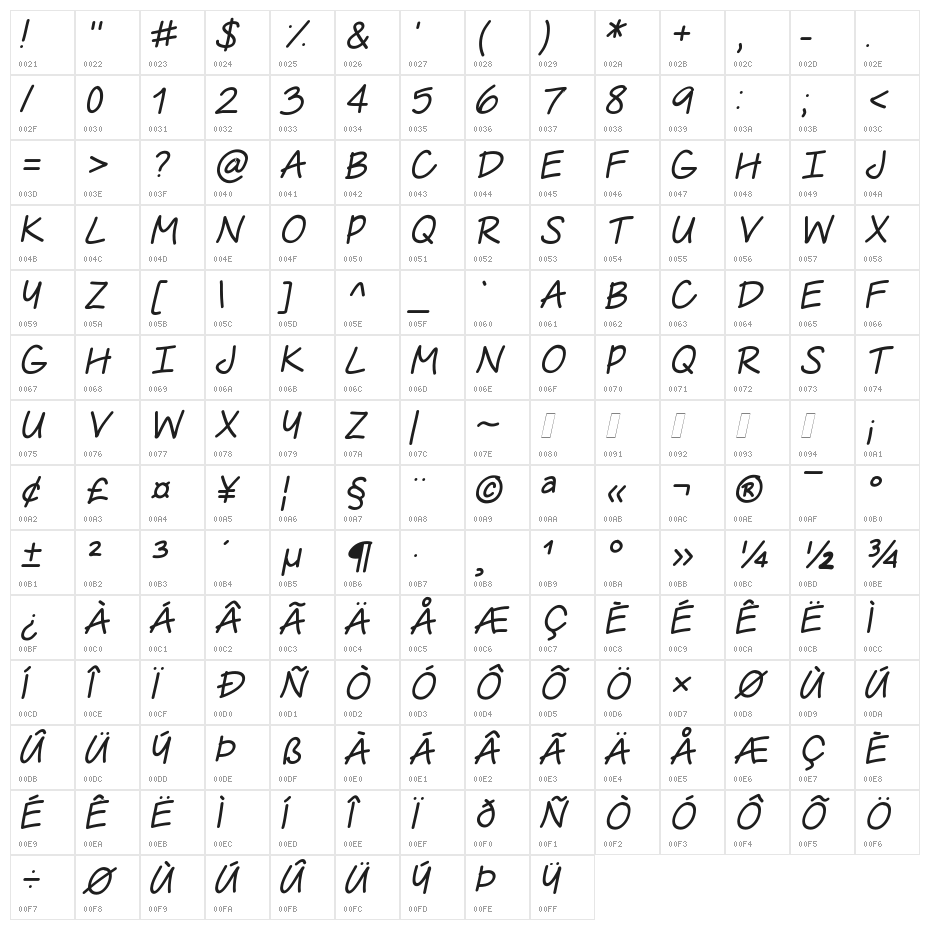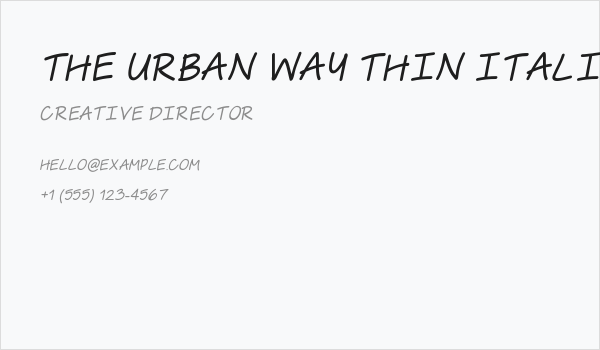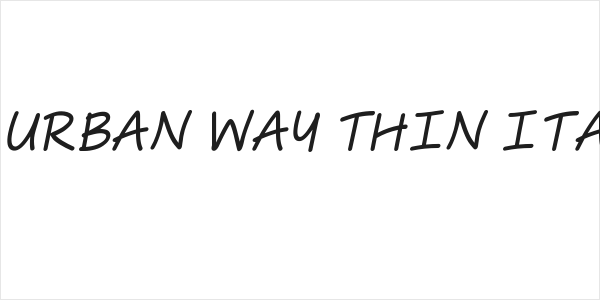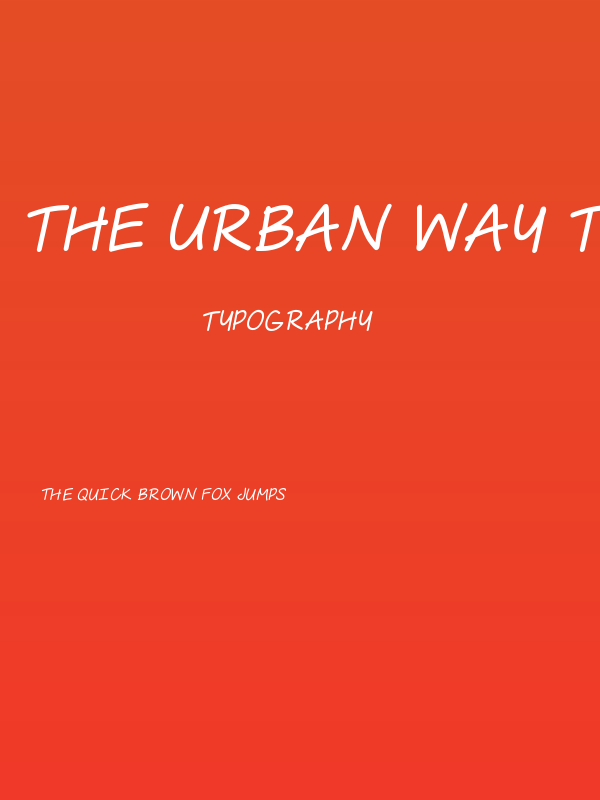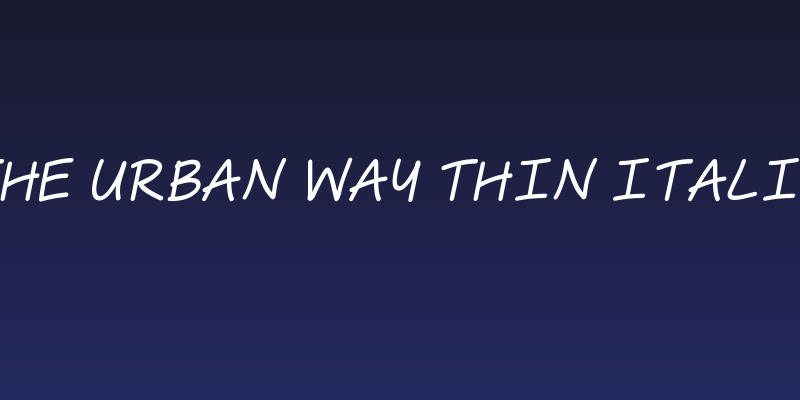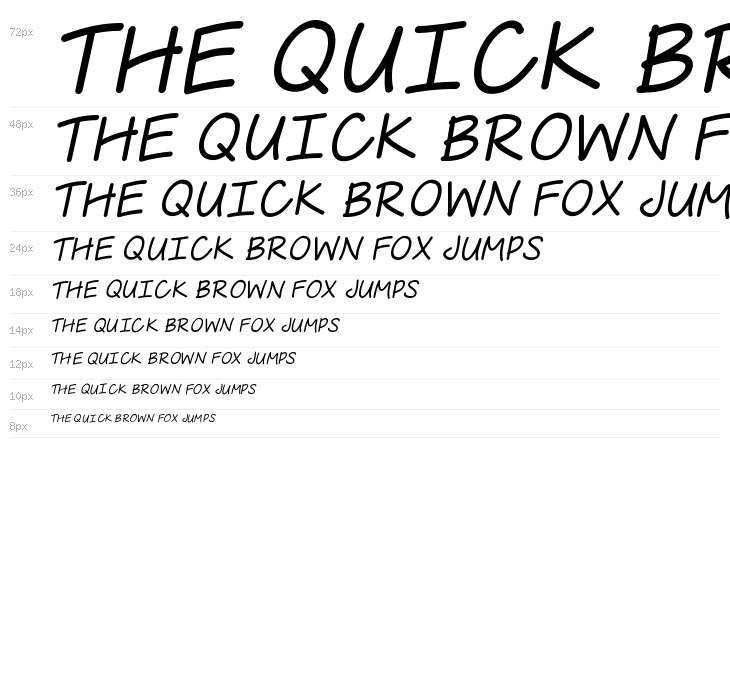
The Urban Way Thin Italic Font
The Urban Way Thin Italic Description
This font features a casual, handwritten style with a thin, italicized appearance. The characters are slightly slanted, giving a dynamic and fluid feel. The strokes are consistent and smooth, providing a clean and modern look. The uppercase and lowercase letters are well-proportioned, maintaining readability while adding a touch of elegance. The numerals and special characters are designed to match the overall aesthetic, ensuring uniformity across all elements. This font is ideal for projects that require a personal touch or a relaxed, informal vibe.
| Use Case | Logos, Headlines, Informal Text |
| Proposed Projects | Perfect for greeting cards, personal branding, social media graphics, and informal invitations. |